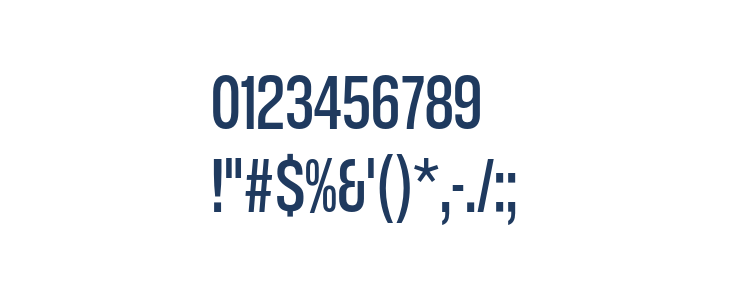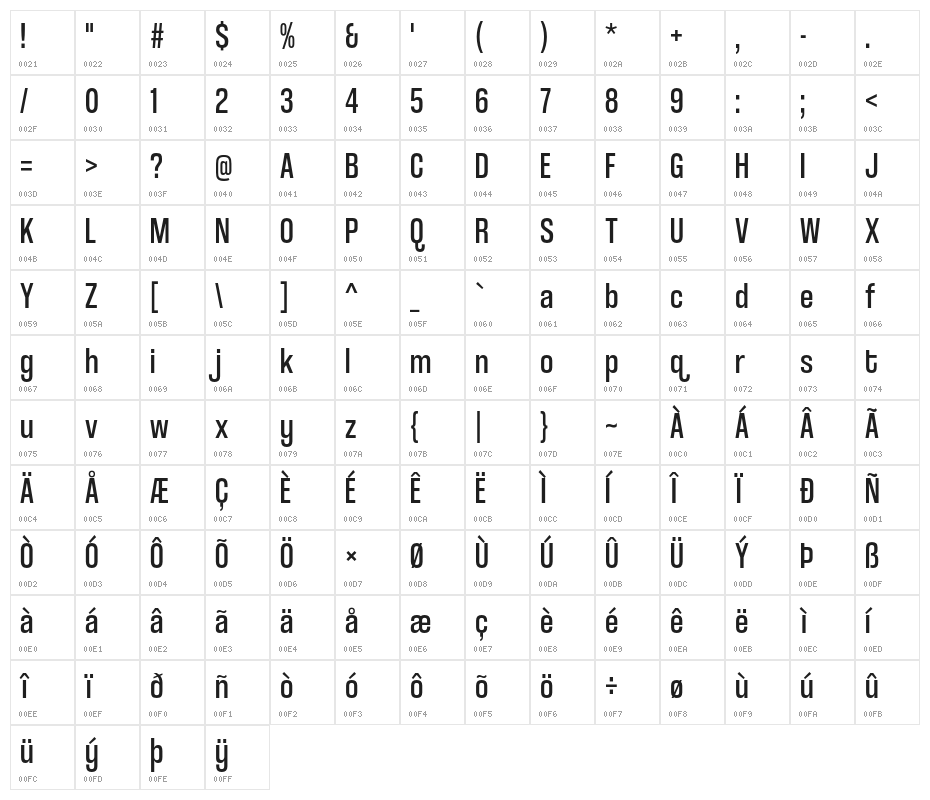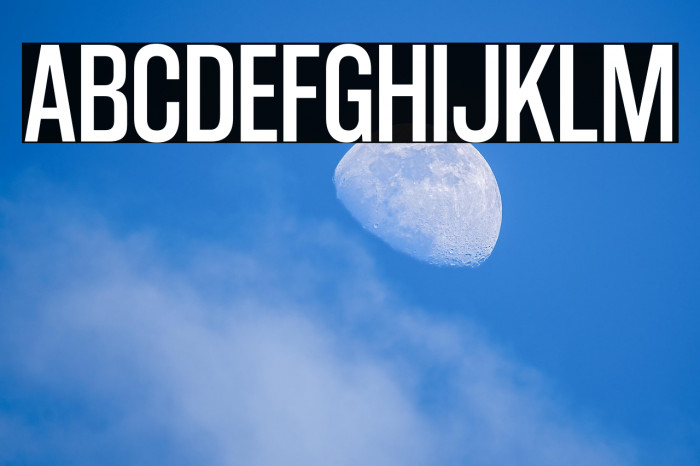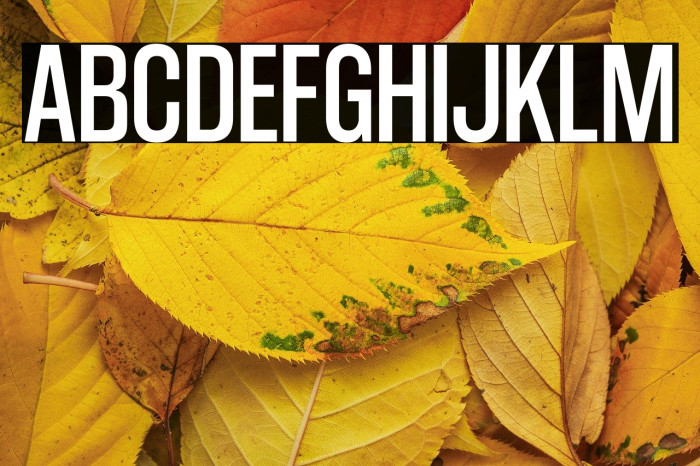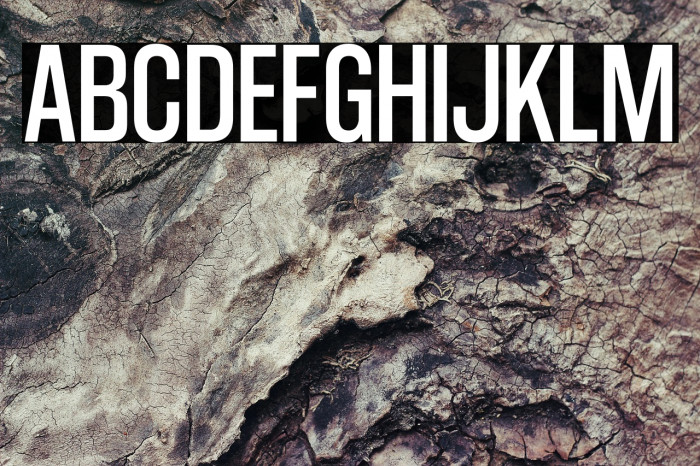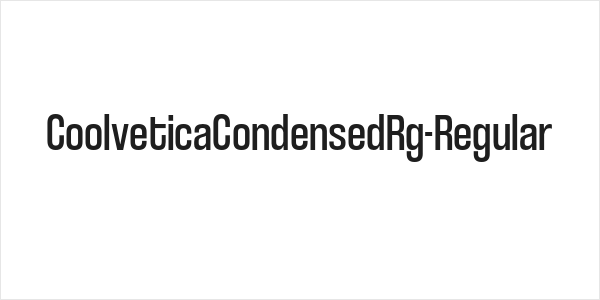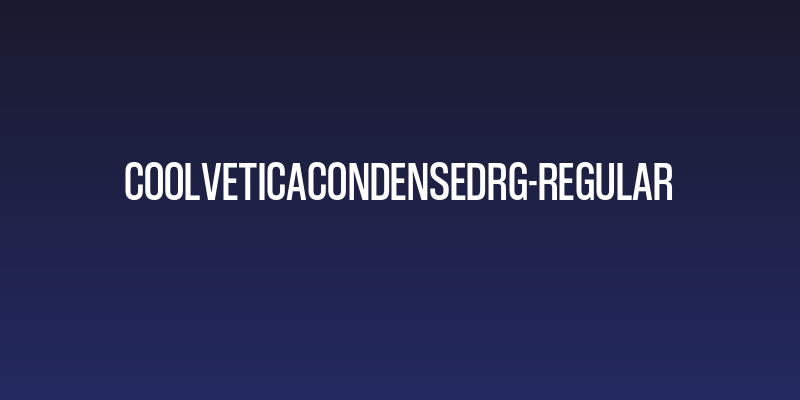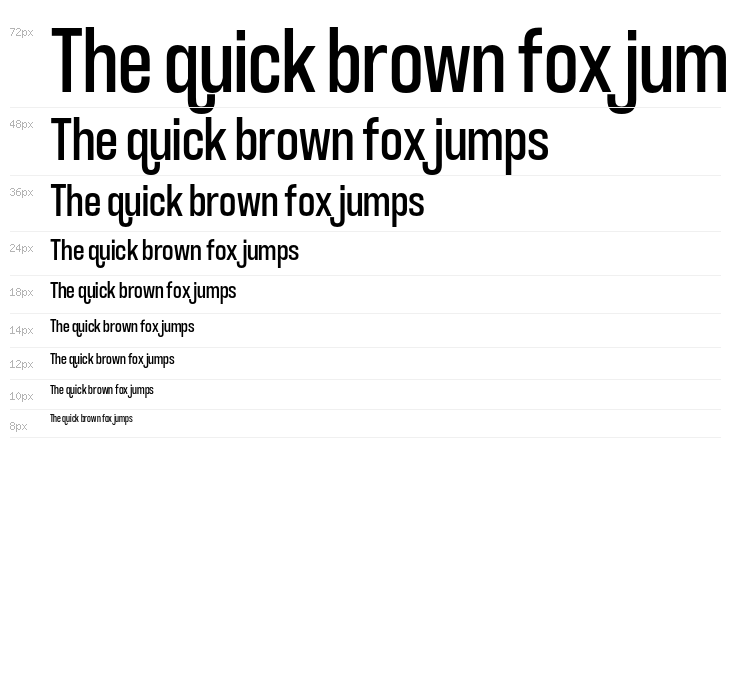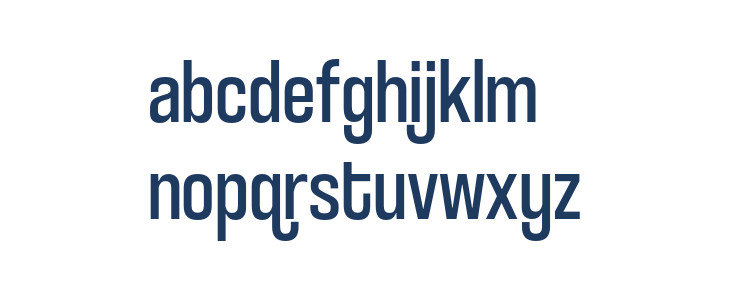
CoolveticaCondensedRg-Regular Font
CoolveticaCondensedRg-Regular Description
This font features a clean, modern sans-serif style with a condensed width, making it ideal for space-saving designs. The characters are uniformly constructed with a consistent stroke width, providing a sleek and streamlined appearance. The uppercase and lowercase letters maintain a harmonious balance, while the numerals and special characters are designed to complement the overall aesthetic. This font exudes a contemporary vibe, suitable for a variety of digital and print applications.
| Proposed Projects | Ideal for branding, advertising, headlines, posters, and web design projects that require a modern and space-efficient typeface. |